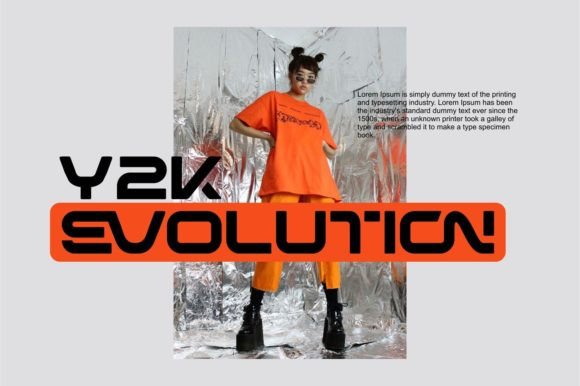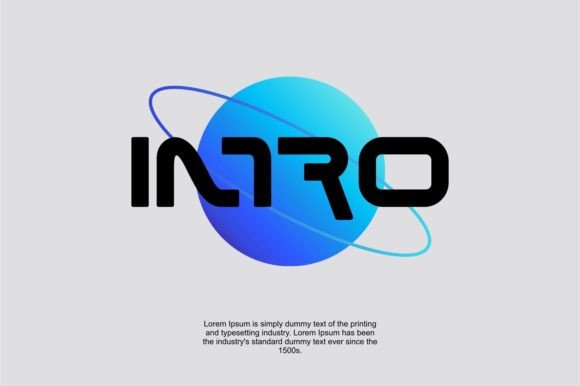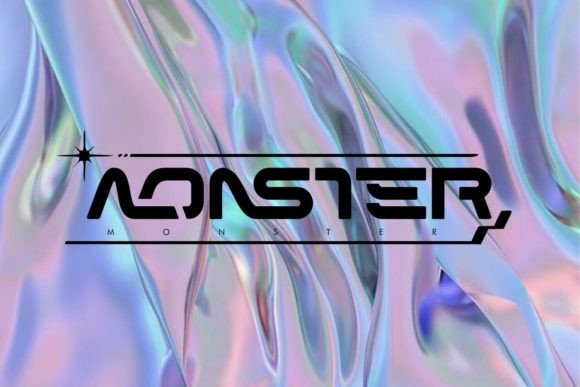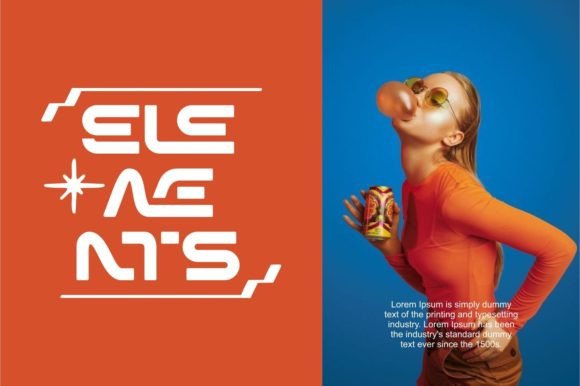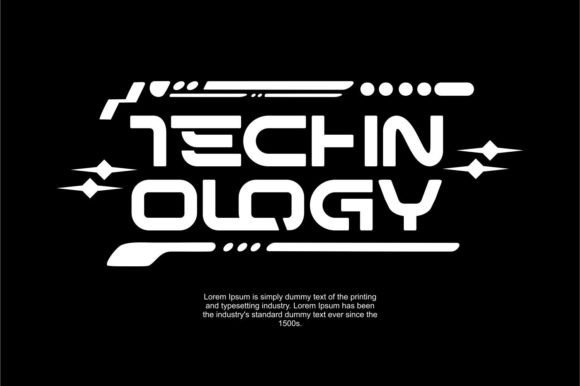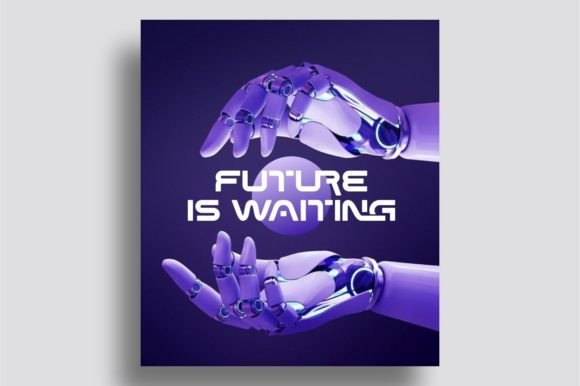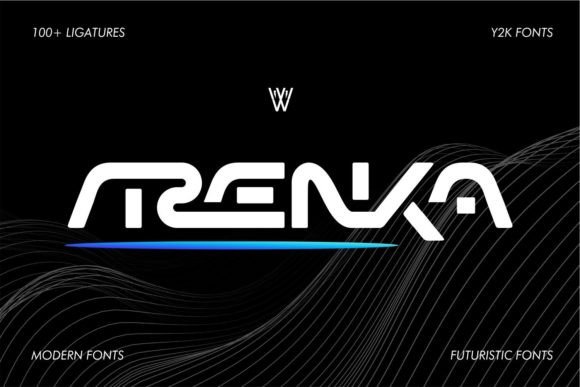
The Resurgence of Y2K Fonts: Introducing Arenka
As a designer, I’ve experienced my fair share of nostalgic moments. One such moment was when I was working on a project that required a font reminiscent of the early 2000s. I scoured the internet, but couldn’t find anything that quite fit the bill. That’s when I stumbled upon Arenka Font, a modern take on the classic Y2K fonts that brought back memories of flip phones, low-rise jeans, and MySpace.
A Personal Connection to Arenka
I was immediately drawn to Arenka’s unique blend of futuristic and retro elements. The font’s creator had clearly been inspired by the era of rapid technological advancements and the distinctive typography that came with it. As someone who’s passionate about digital art, I was excited to explore Arenka’s features and see how it could be used to bring a touch of nostalgia to modern designs.
An Honest Review of Arenka
- ✨ Unique Ligatures: Arenka comes with over 100+ ligatures, which add a touch of personality to any text.
- ✅ Extensive Glyph Set: With over 100+ glyphs available, you’ll have plenty of options for customizing your text.
- ⚡️ OpenType Features: Arenka supports OpenType features, making it easy to access stylistic alternates, swashes, and more.
While Arenka is an excellent font, there are a few things to keep in mind:
- 🤔 Some Ligatures Can Be Finicky: Occasionally, ligatures may not render correctly, especially when using certain software or platforms.
- ⚠️ Limited Support for Certain Languages: Arenka may not support all languages, so be sure to check the font’s specifications before using it for a project.
The Backstory of Arenka
Arenka was created with the intention of bringing back the nostalgia of Y2K fonts. The font’s designer drew inspiration from the era’s distinctive typography, combining it with modern elements to create a unique and versatile font.
Q: What is Arenka Font?
Arenka Font is a modern take on classic Y2K fonts, designed to bring a touch of nostalgia to modern designs.